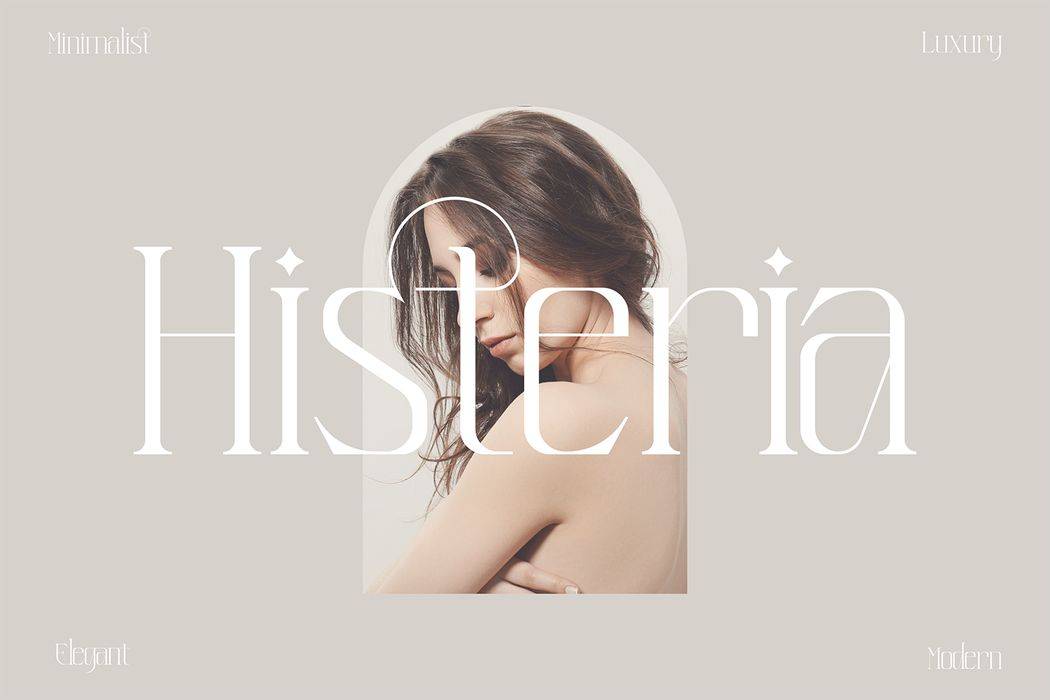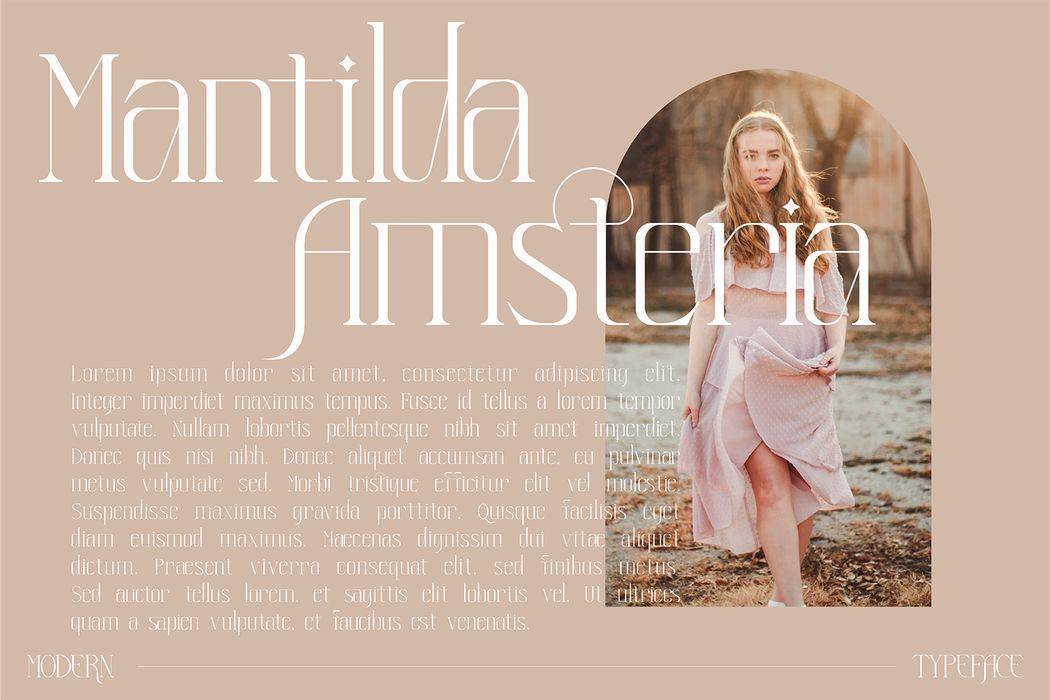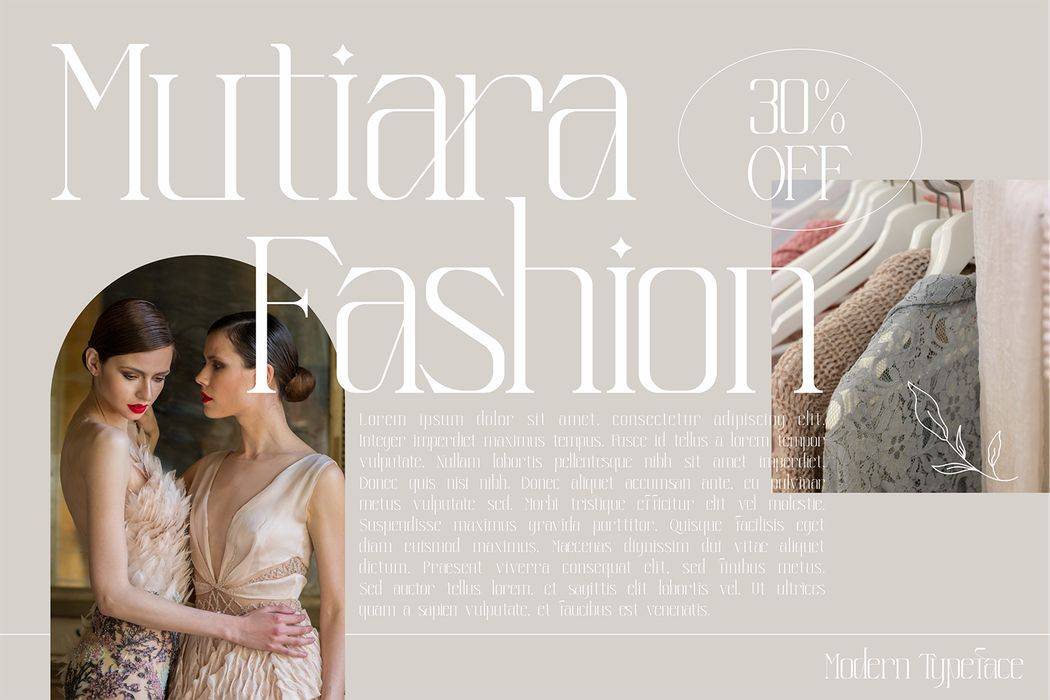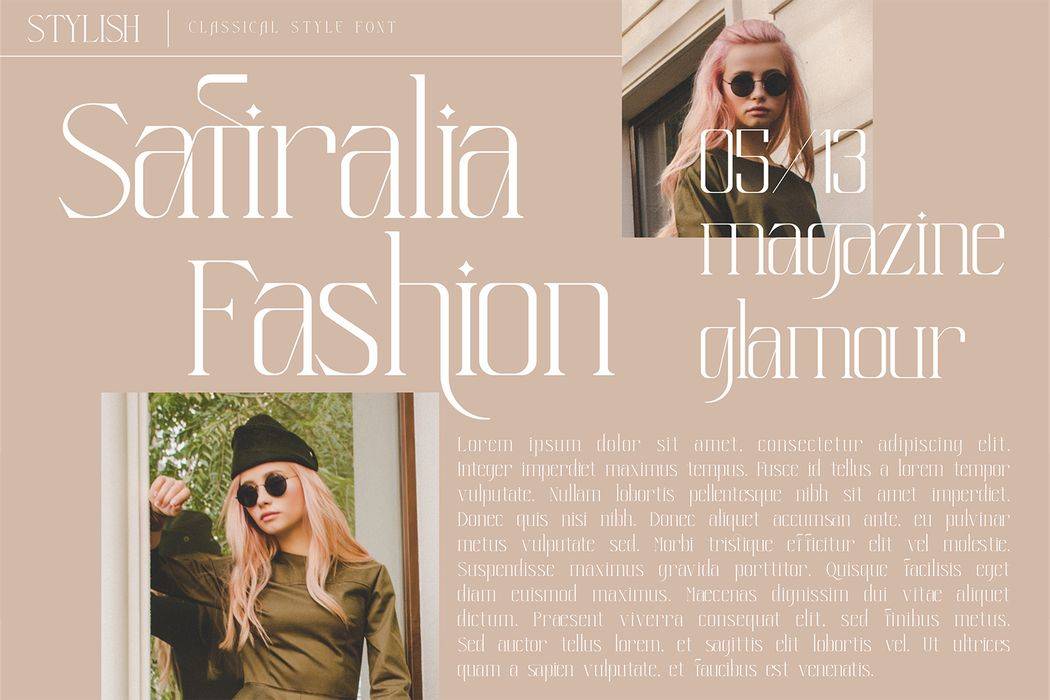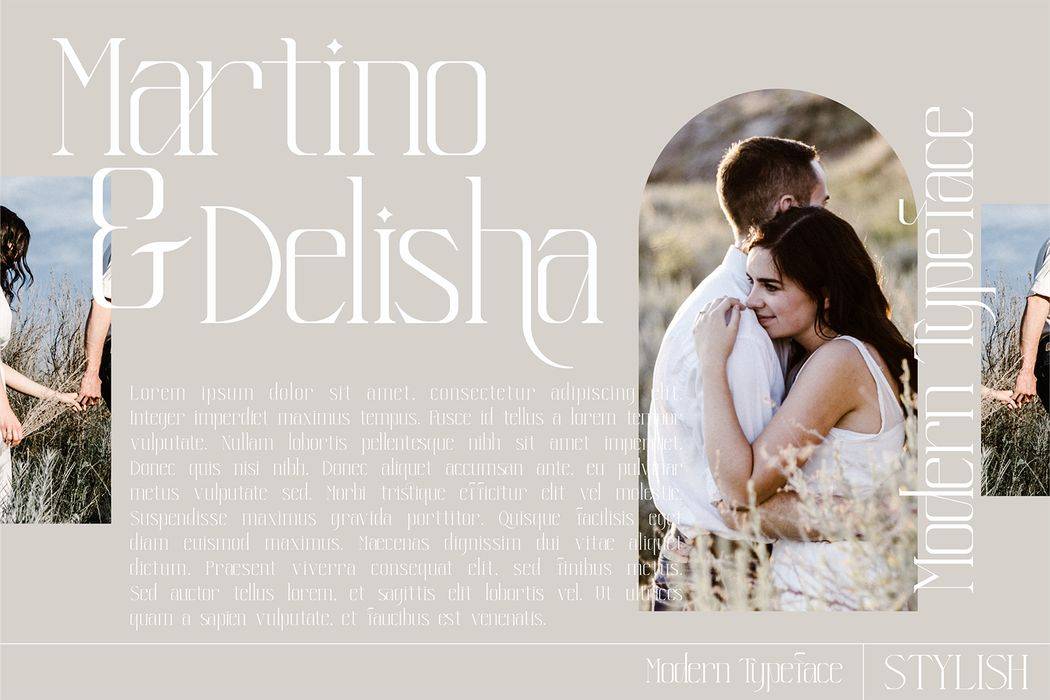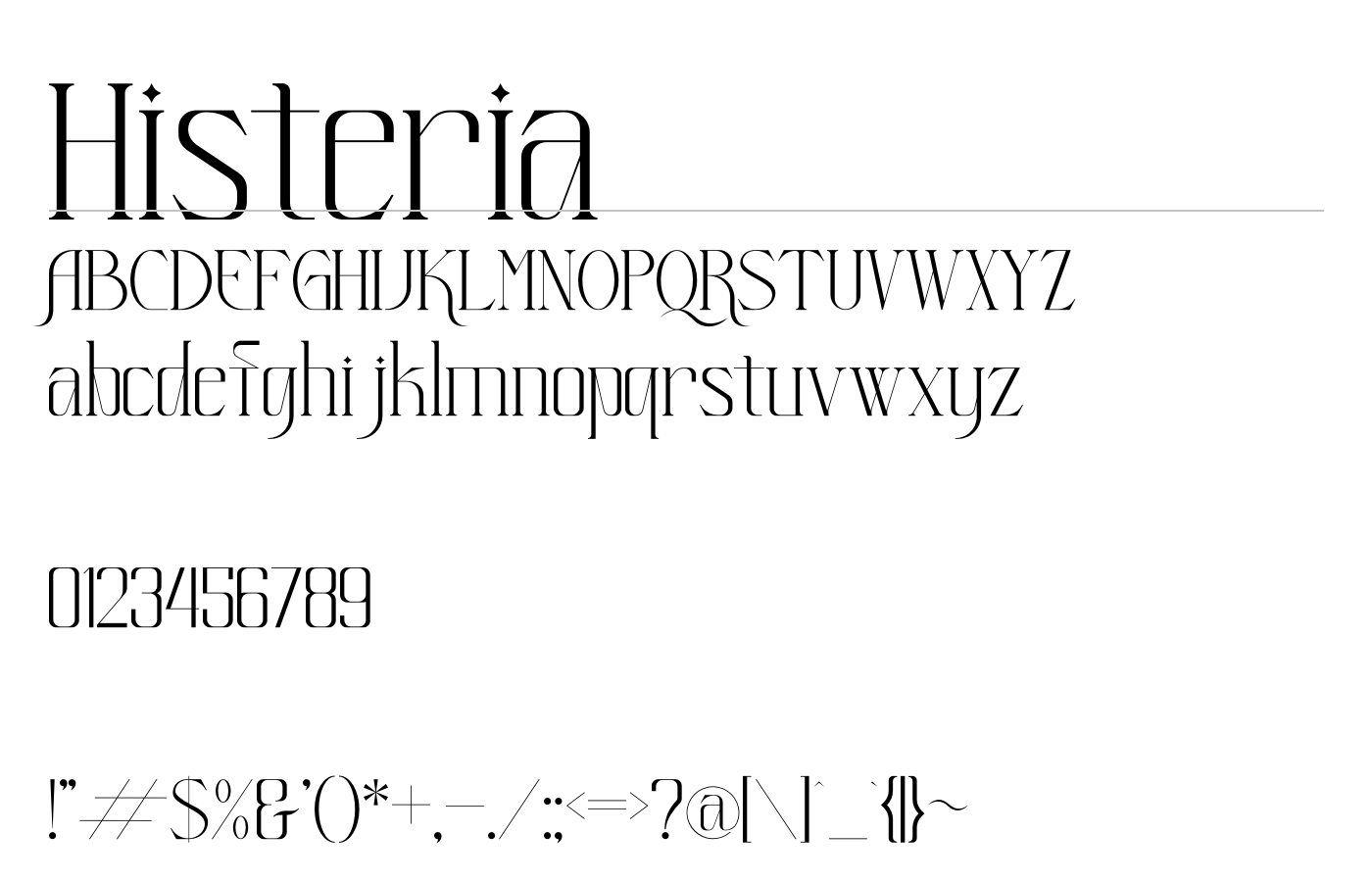
Histeria is a slender, elegant serif font with a high contrast between thick and thin strokes, featuring refined, sharp serifs and unique decorative details that give it a sophisticated, artistic feel. Its tall x-height and narrow letterforms create a striking visual impact, making it ideal for luxury branding, fashion, and stylish editorial headlines where a modern yet timeless character is desired. This font’s delicate balance of classic serif elements with contemporary flair lends itself well to upscale, creative projects that want to stand out with subtle elegance.
Histeria Font
About Histeria Font